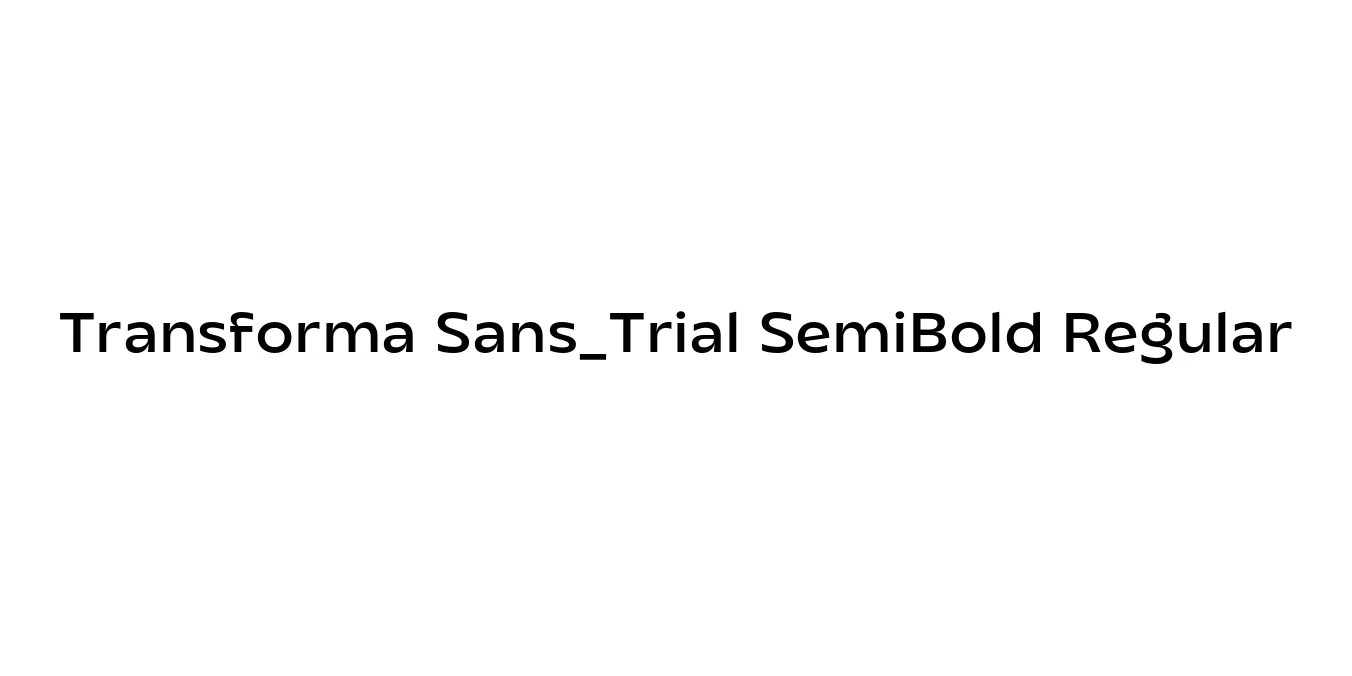
Transforma Sans_Trial SemiBold Regular
Designed by Svyatoslav Panasyuk (BurnType)
Transforma Sans is a contemporary geometric sans-serif typeface designed to balance technical precision with approachable character. Developed as part of the broader Transforma super-family, this SemiBold weight offers a sturdy yet elegant presence, making it ideal for high-impact typography. Its clean lines and open counters ensure legibility across both digital screens and traditional print media, reflecting a modern aesthetic that suits a wide range of corporate and creative identities.
The development of Transforma Sans was rooted in the pursuit of a universal design tool that adapts to various typographic needs. By focusing on geometric foundations while subtly adjusting stroke widths for visual harmony, the designer at BurnType created a font that feels both timeless and forward-looking. This trial version allows designers to experience the font's robust construction and rhythmic spacing, serving as a versatile foundation for branding, user interfaces, and editorial layouts where clarity is paramount.
Transforma Sans_Trial SemiBold Regular Best Uses
Ideal for bold logos and corporate identity systems that require a modern touch.
Highly effective for headlines and navigational elements due to its clear proportions.
Provides excellent legibility for user interface components on high-resolution screens.
Perfect for magazine subheaders and pull quotes where a strong typographic weight is needed.